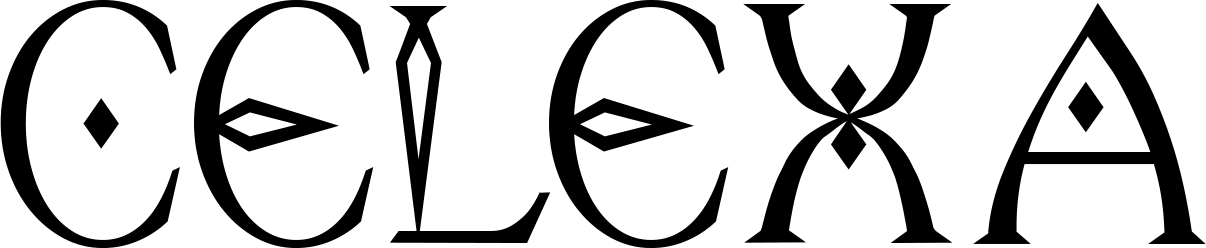
Celexa Font
Selecting this creative diamond font turns your writing dream into reality. This Celexa font with its retro and versatile vintage touch can make your posters, branding, and greeting cards stand out. This feminine tattoo font is designed in a way that each letter contains a diamond layout. Despite not having lowercase letters, they can play a significant role and be the center of attention.